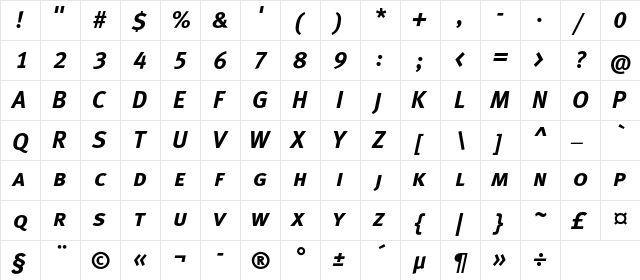
MetaBoldCapsLFC Italic Font Preview
Design Context for MetaBoldCapsLFC Typeface
MetaBoldCapsLFC offers clean, dependable letterforms without strong stylistic allegiance, making it a practical choice for designers who need flexibility. Its italic angle brings a sense of urgency and motion to the letterforms. Its bold stroke weight gives it real presence on the page.
Pro Tip: Try MetaBoldCapsLFC for annotation and caption copy alongside an upright companion — the contrast in angle creates a dynamic but ordered typographic system.